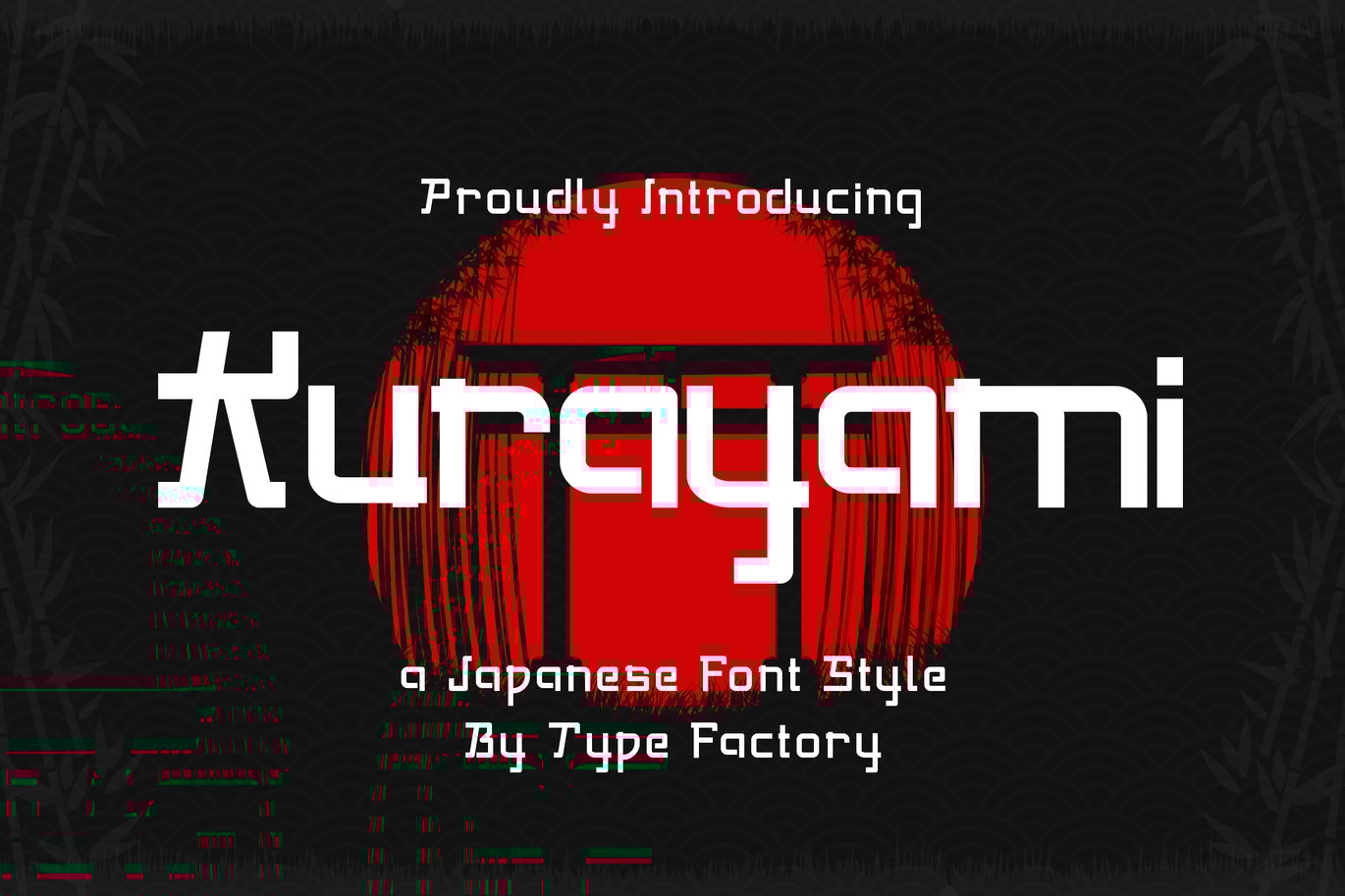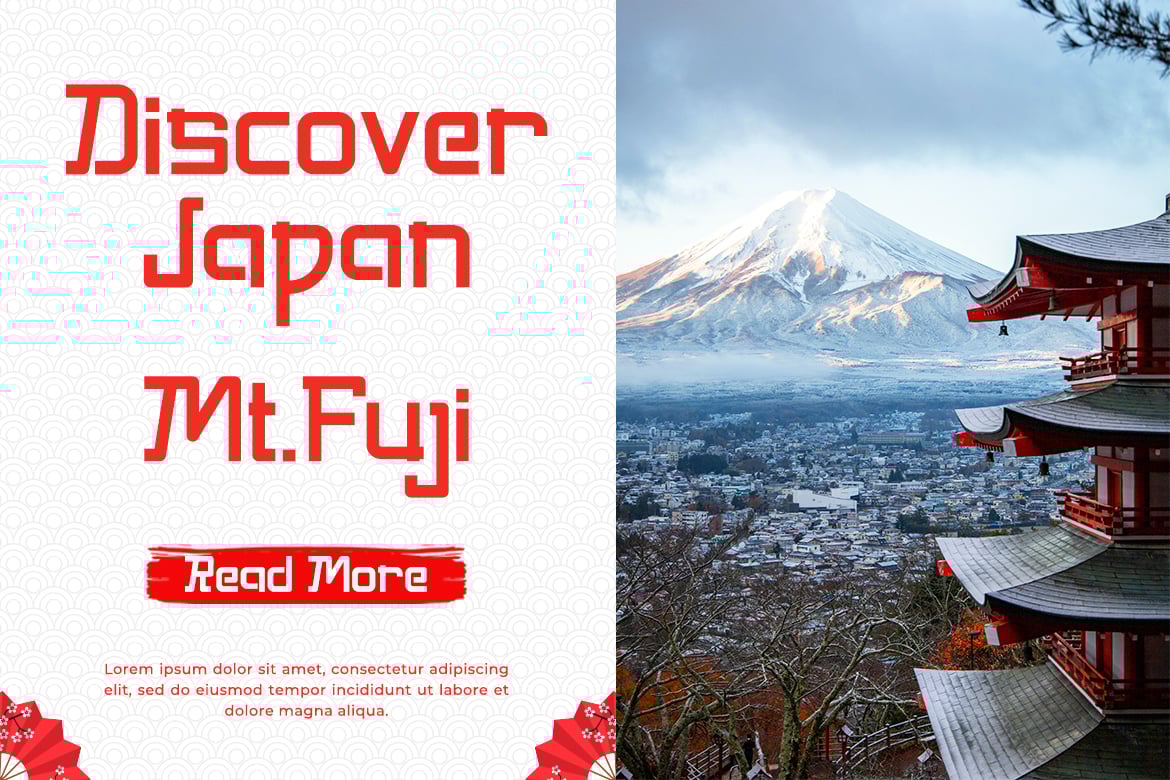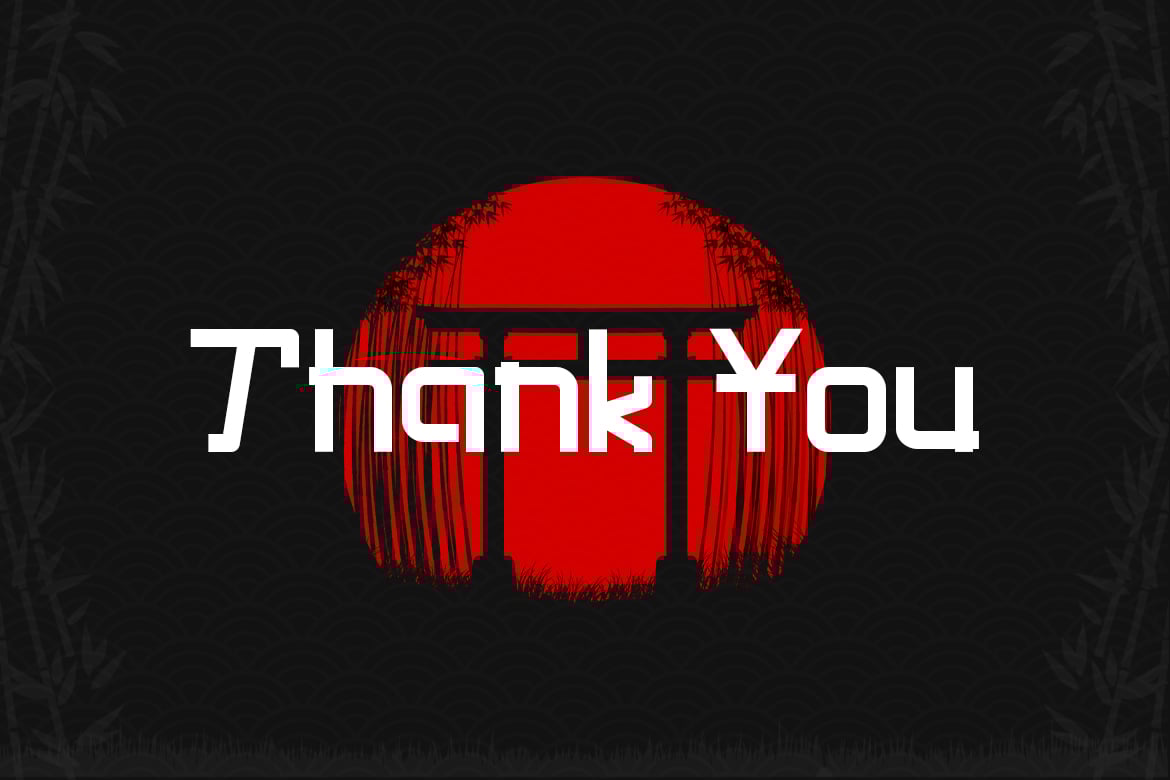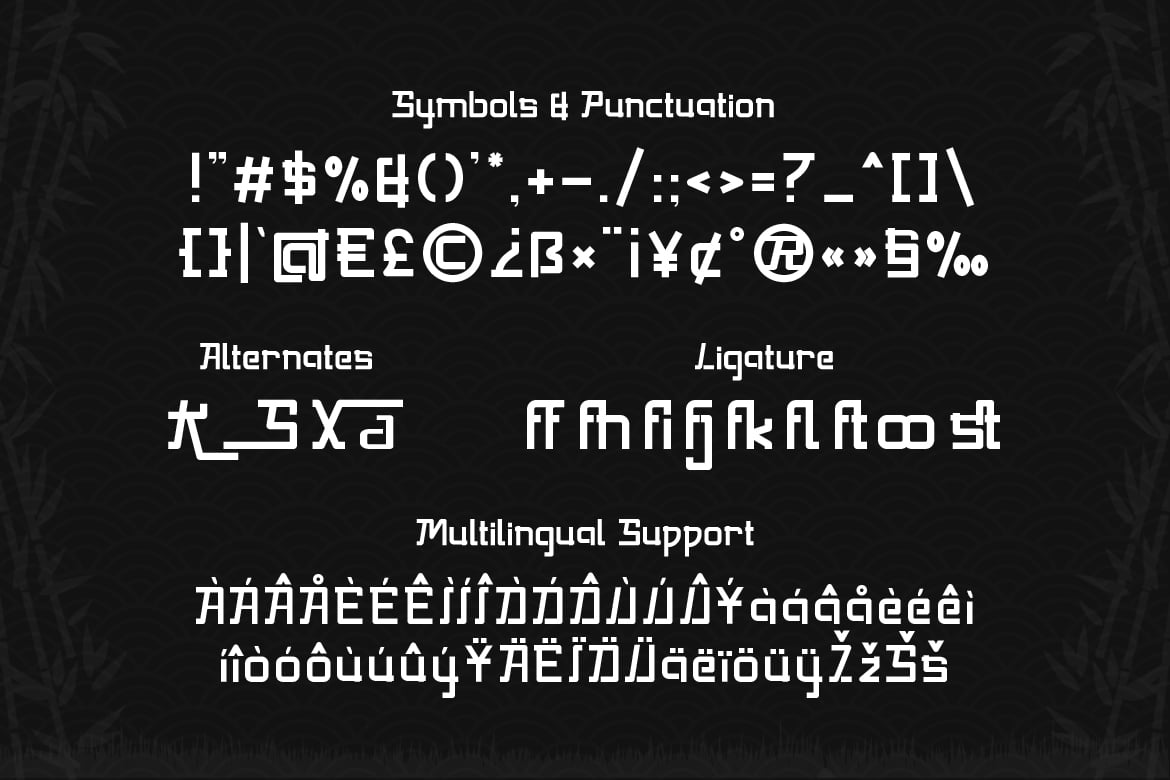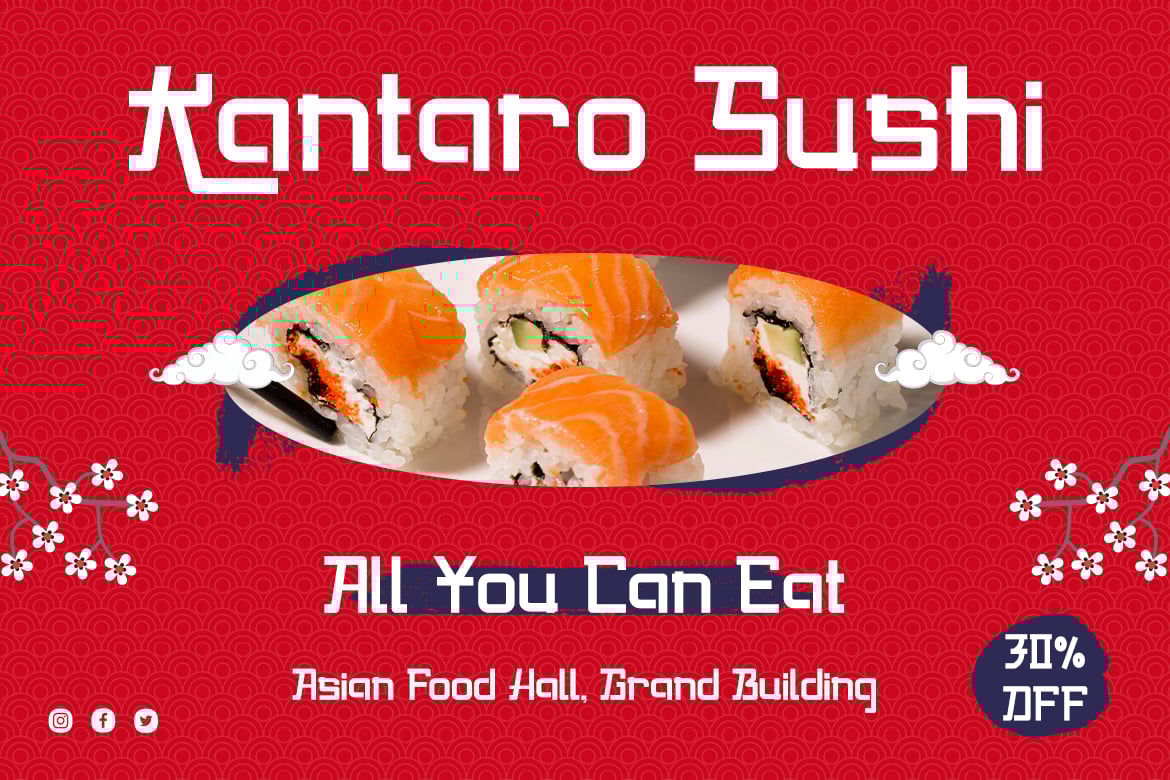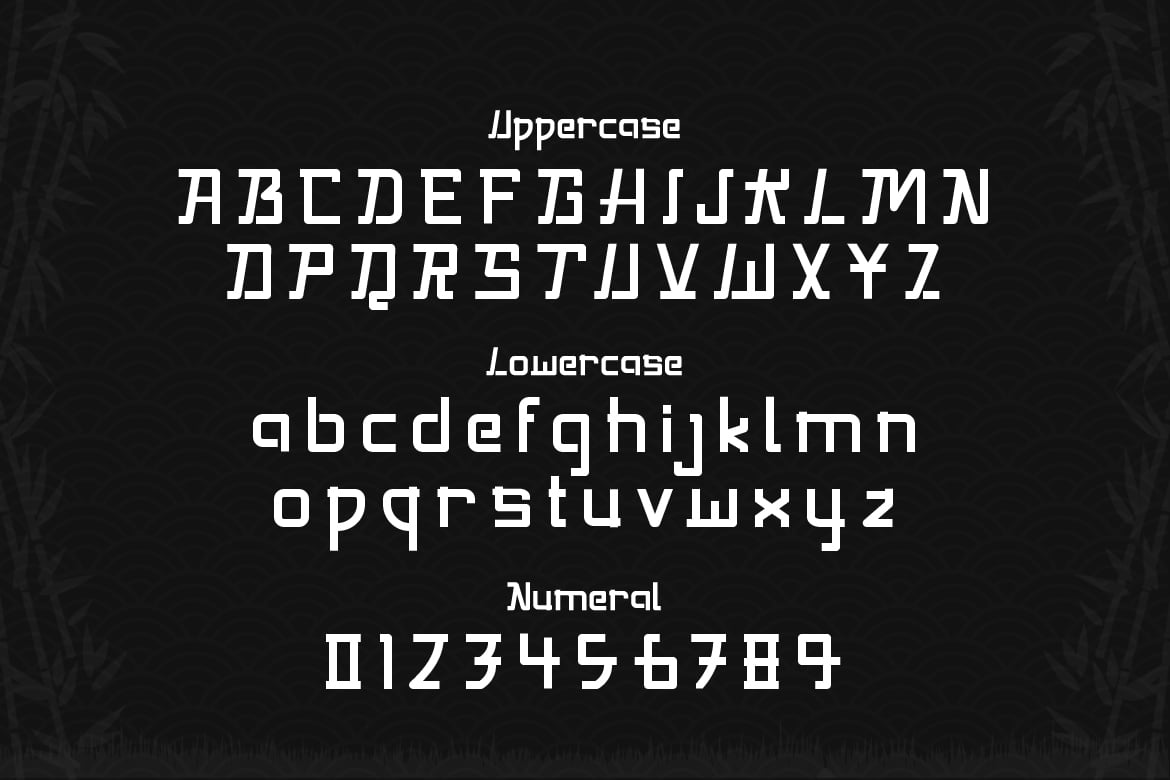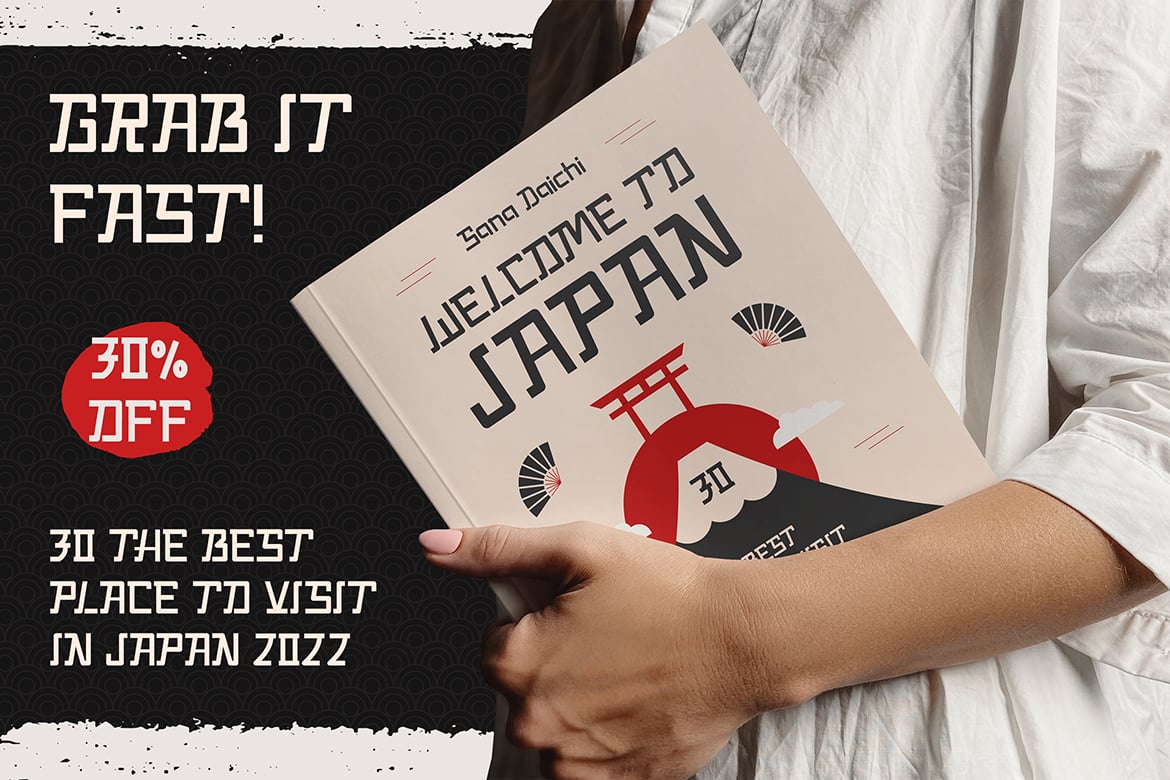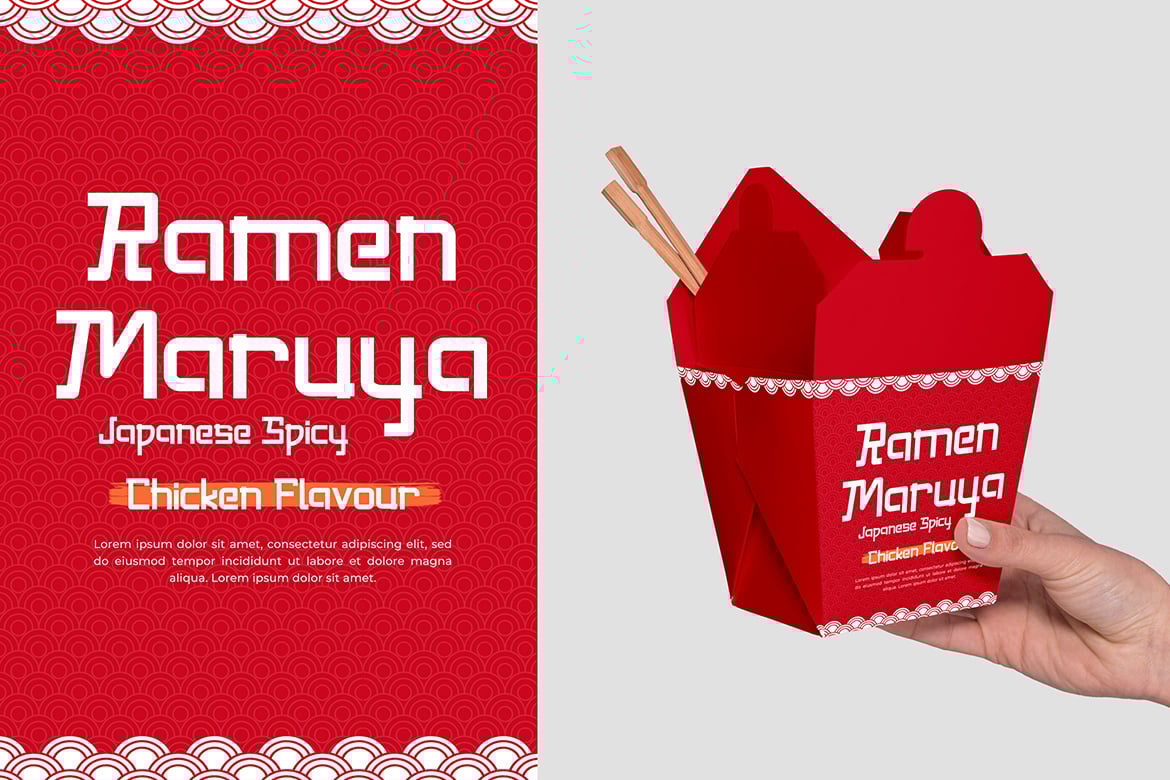
Kurayami – Japanese Font Style
Kurayami is a simple Japanese-inspired display font.
It has great readability and will add a striking touch to any design!
It will look awesome on a restaurant brand!
- Symbols & Punctuation